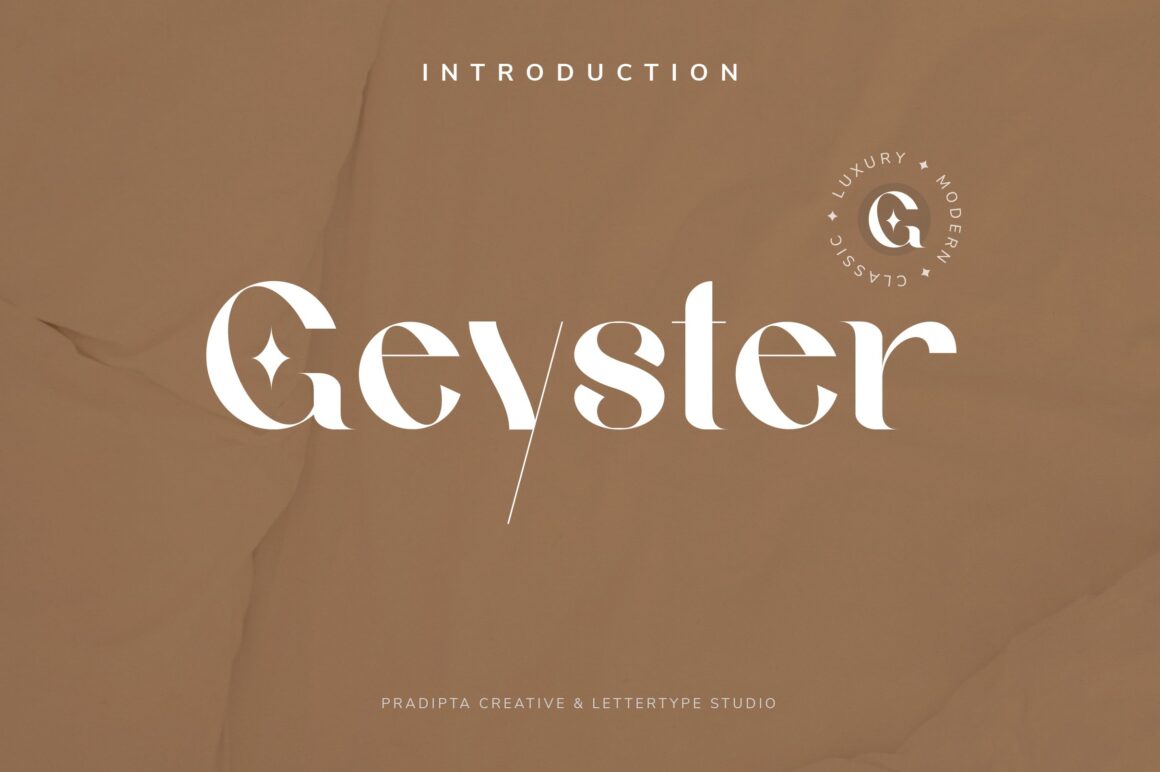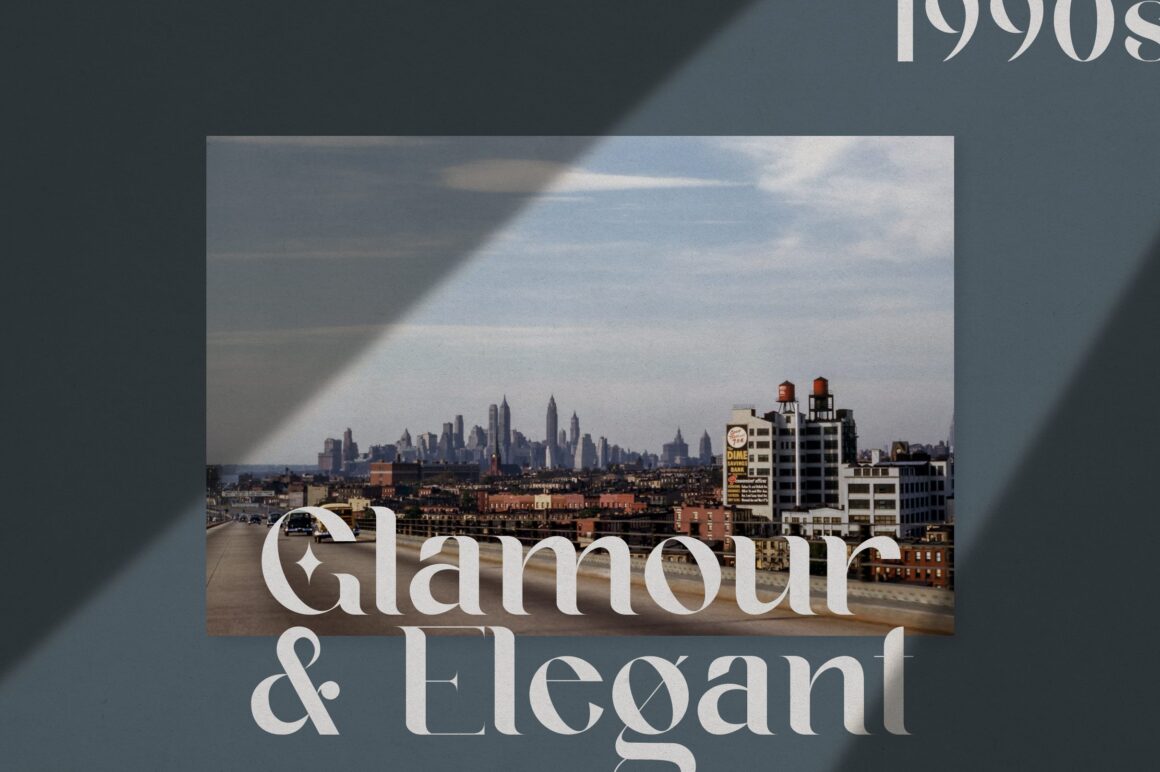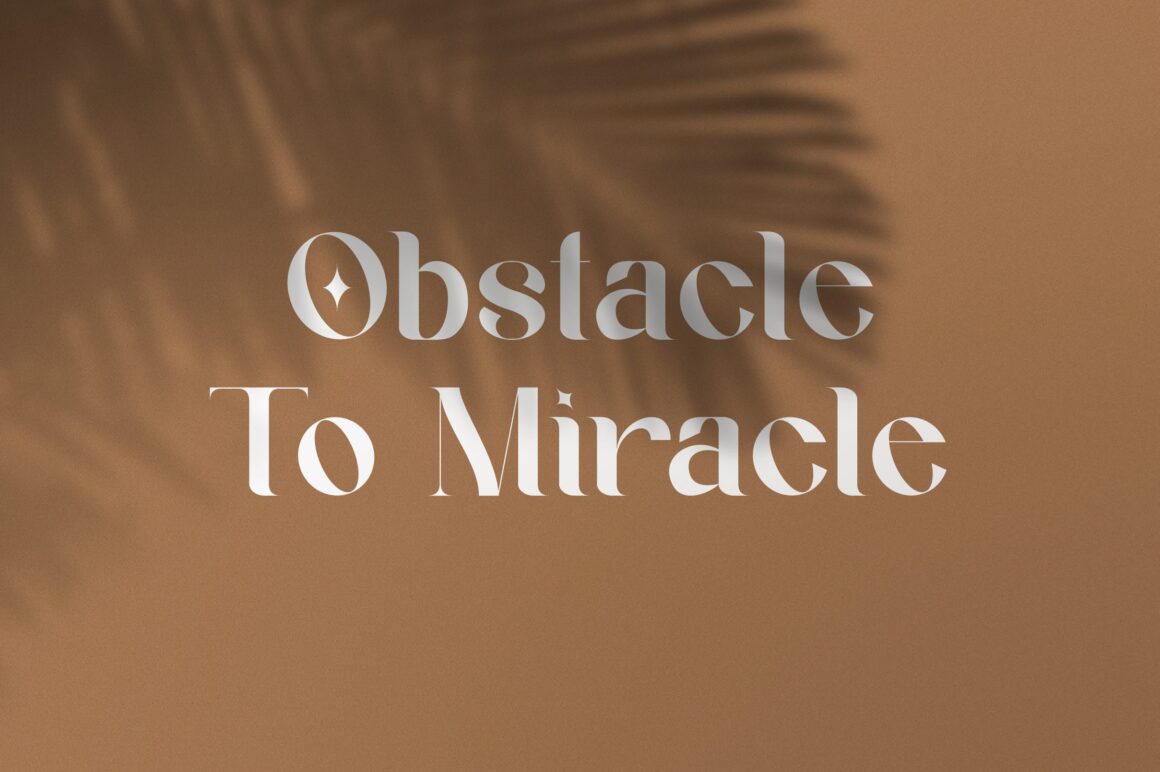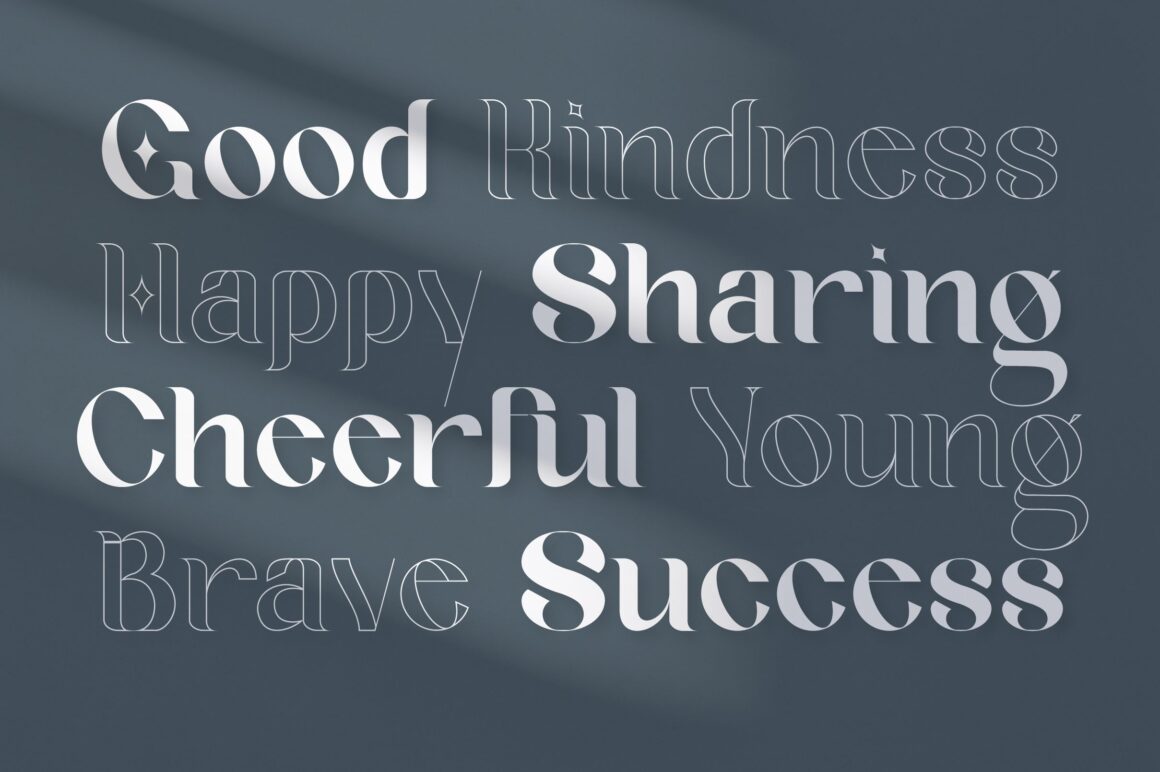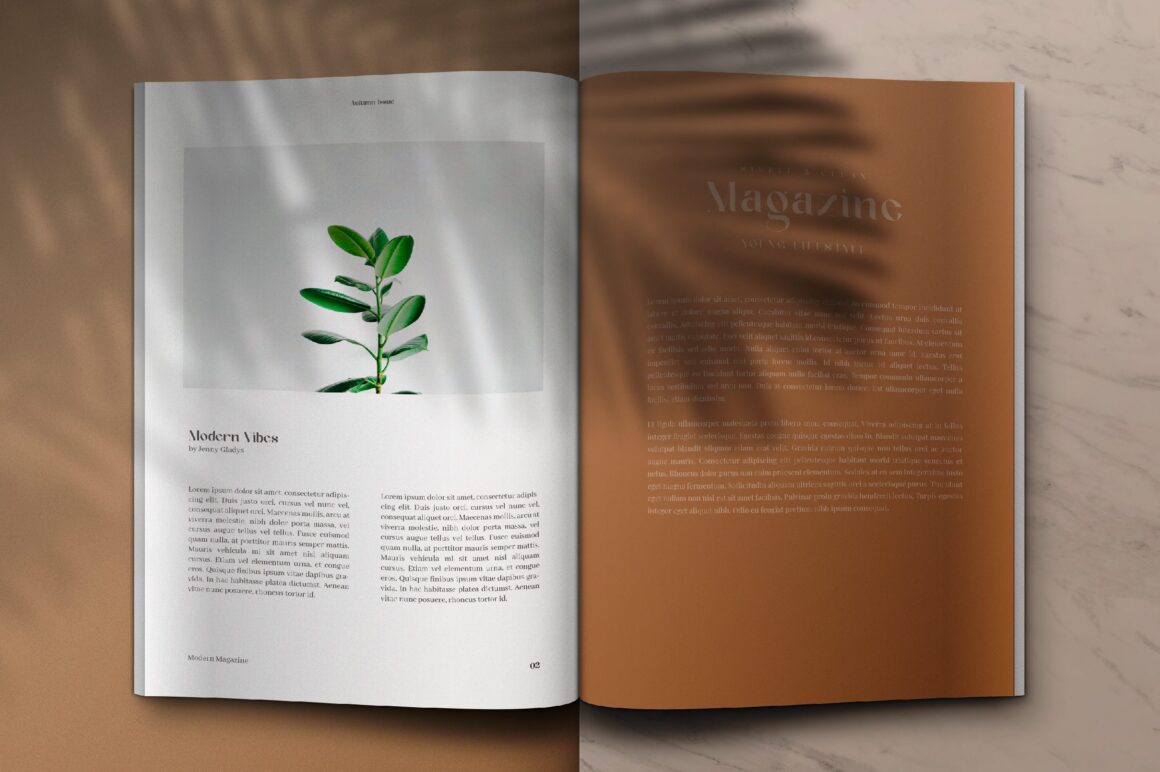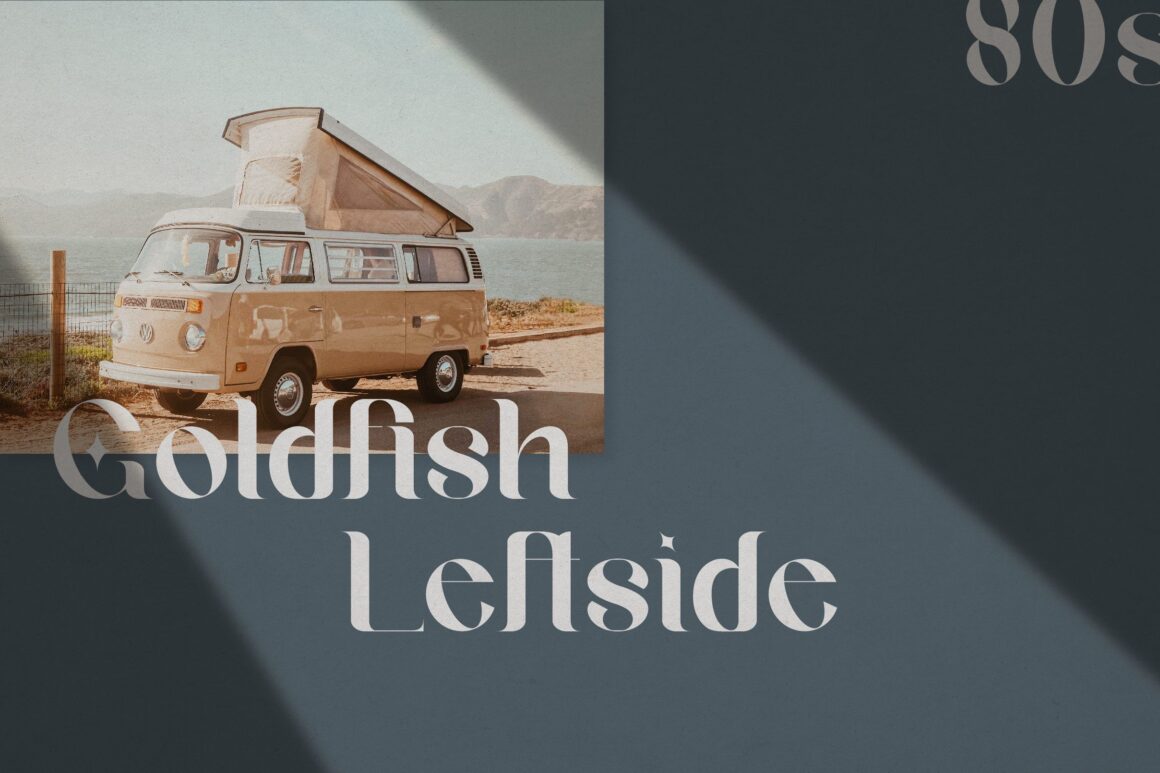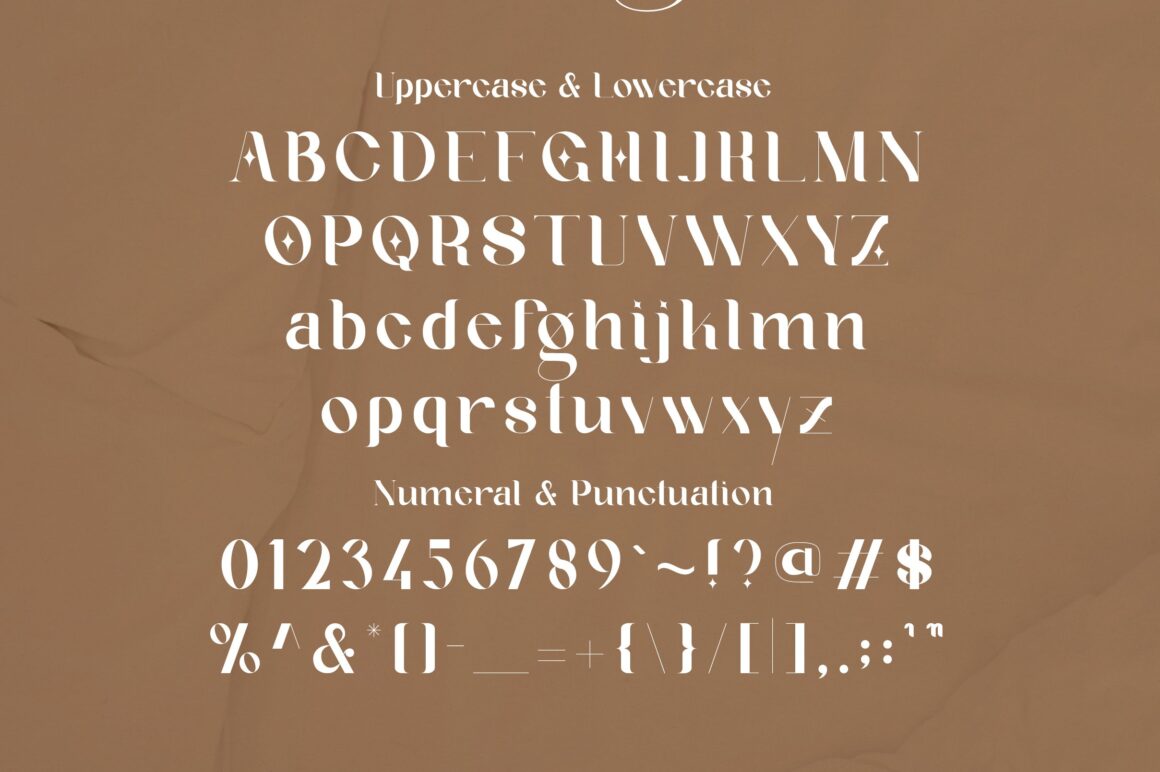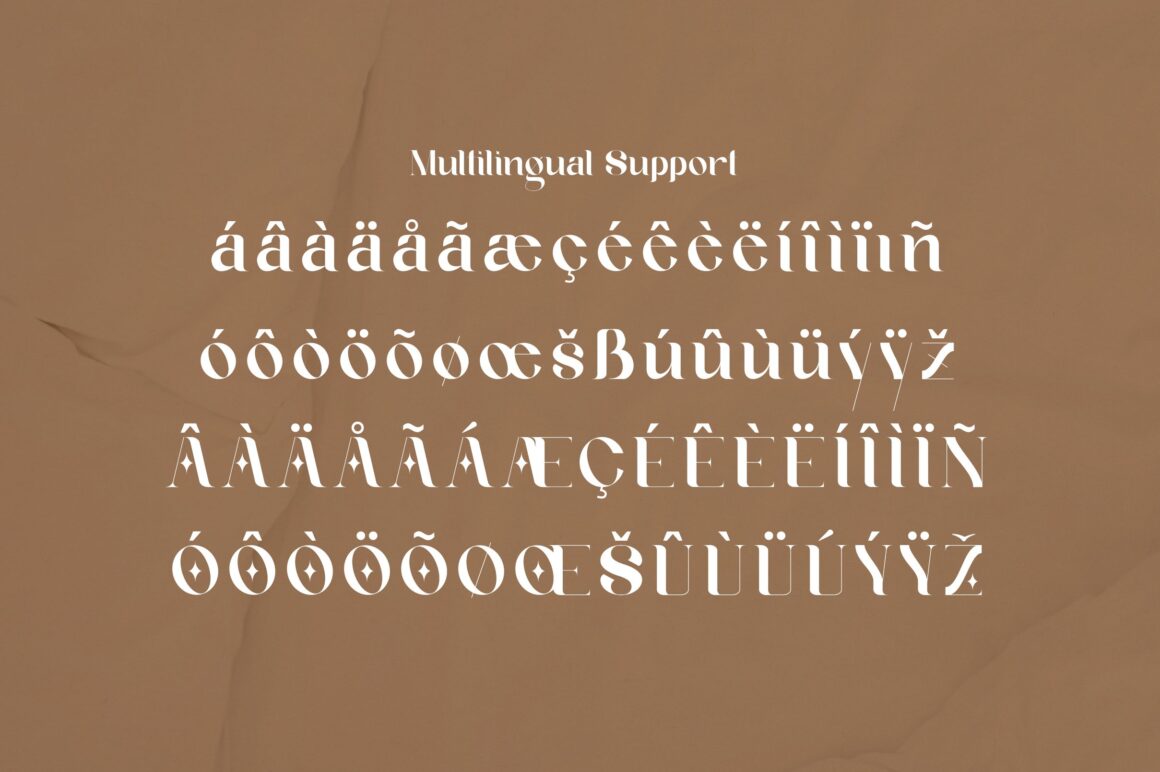
Modern Classic Serif Font
Geyster
Geyster Italic
Geyster Outline
Geyster Serif is a stylish typeface that blends the elegance of classic serif design with a touch of modern and vintage charm. Its versatile letterforms make it perfect for logos, branding, signage, apparel, posters, and wedding invitations, giving your designs a timeless yet contemporary feel.
Created with balance and sophistication in mind, Geyster Serif adapts beautifully to a wide range of projects. Whether you’re aiming for a sleek modern look or a nostalgic vintage mood, this font enhances your creative work with refinement, personality, and elegance.
Geyster Features:
• 3 Styles
• Upright & Oblique
• Stylistic Ligature
• 169+ Languages Supports